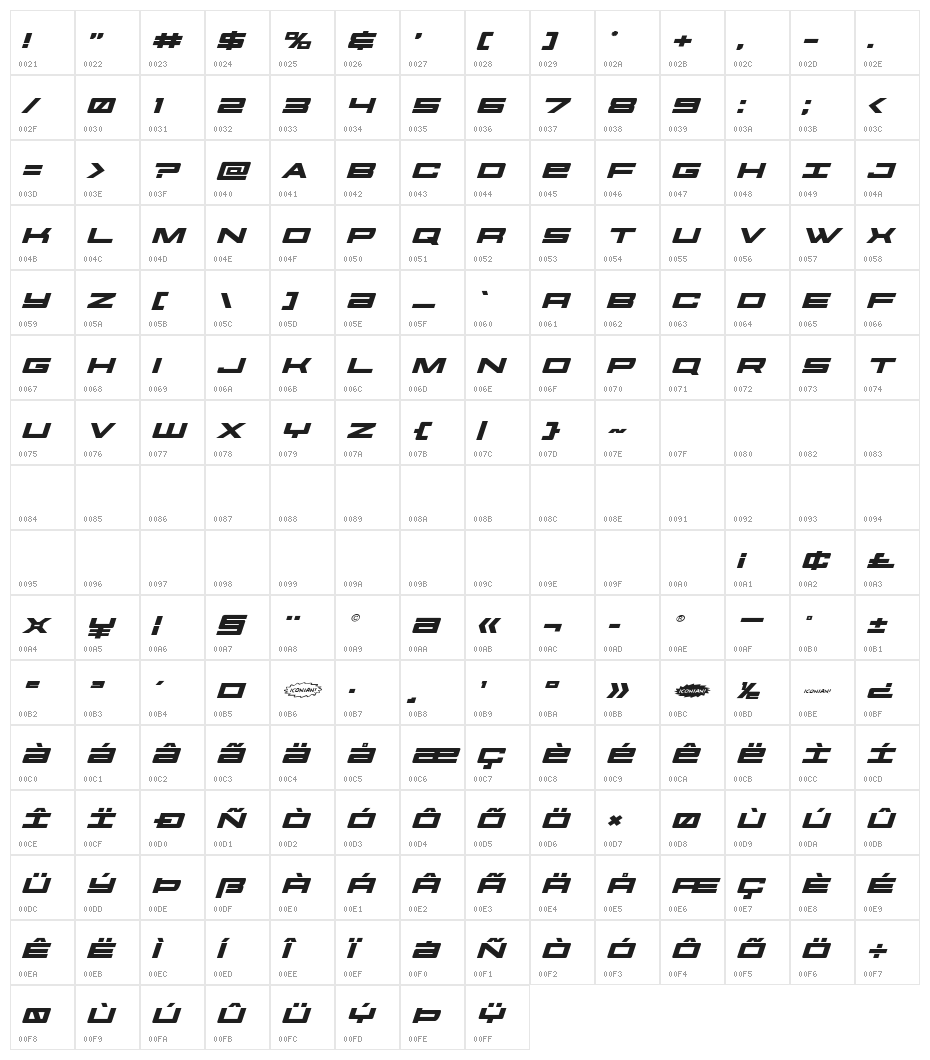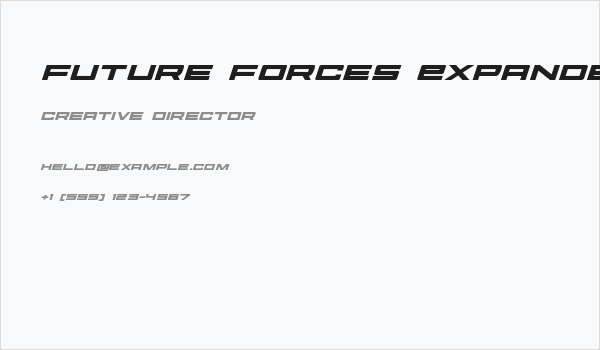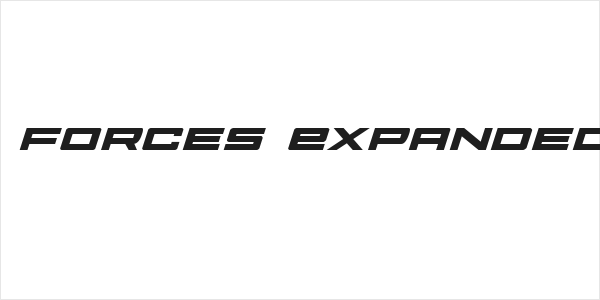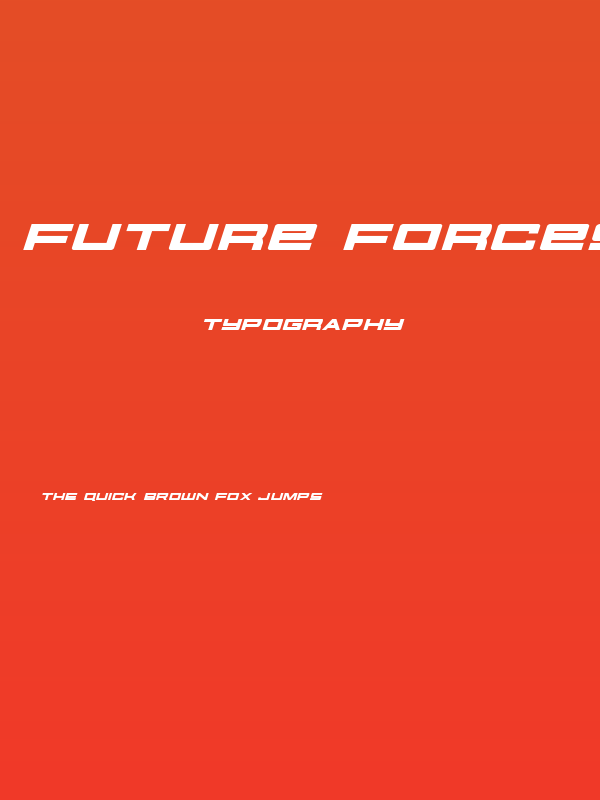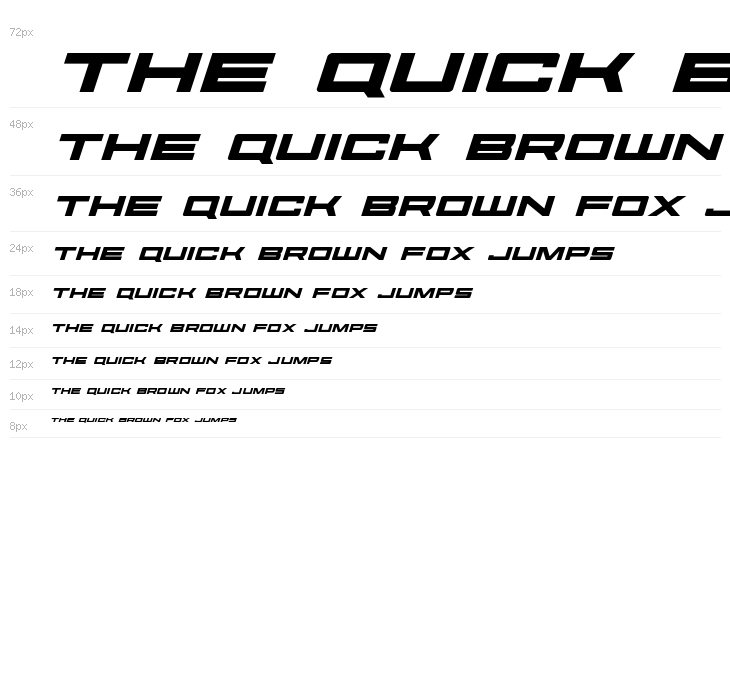
Future Forces Expanded Italic Font
Future Forces Expanded Italic Description
This font features a futuristic and dynamic design, characterized by its expanded and italicized letterforms. The angular and geometric shapes give it a sleek, modern appearance, suitable for high-tech and sci-fi themes. The uppercase and lowercase letters maintain a consistent style, with sharp edges and a forward-leaning stance that conveys motion and speed. The numerals and special characters are designed to match the overall aesthetic, ensuring a cohesive look across all text elements.
| Proposed Projects | Ideal for sci-fi movie posters, video game titles, technology branding, and futuristic-themed designs. |